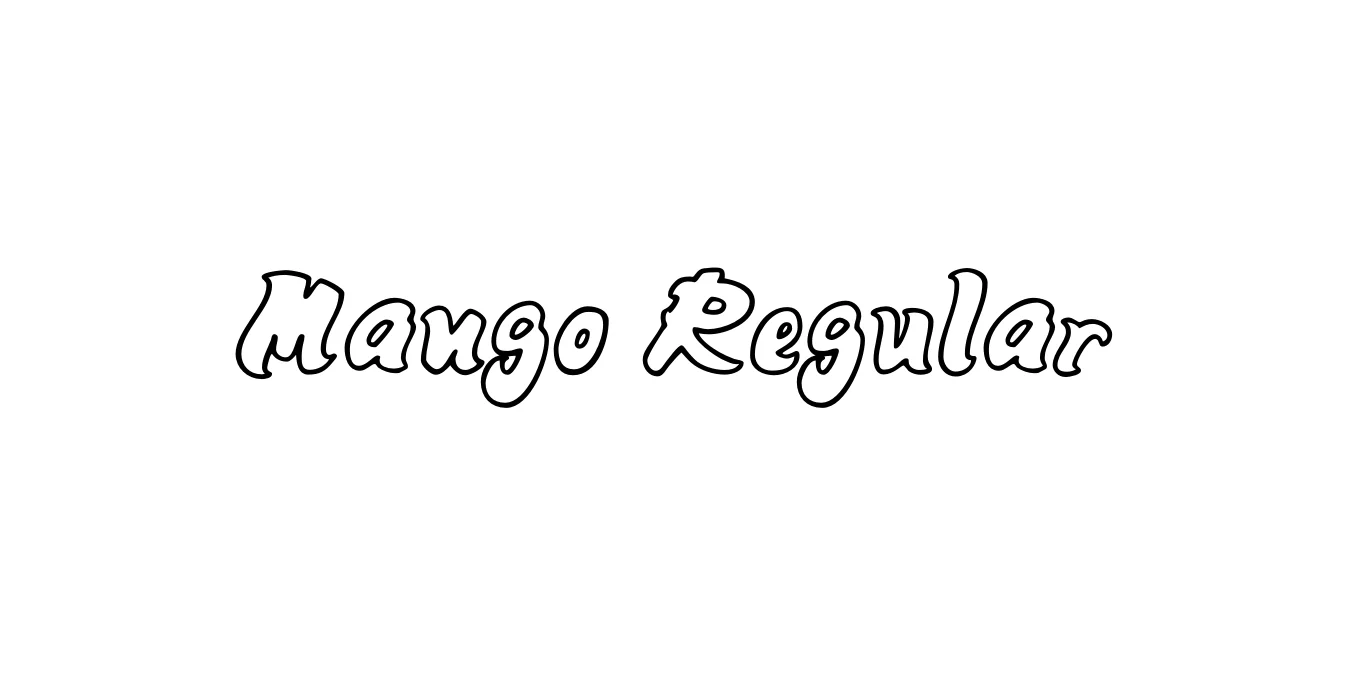
Mango Regular
Designed by Dmitriy Chirkov
| Category | Script / Brush |
| Designer | Dmitriy Chirkov |
Mango Regular is a vibrant and energetic brush-style typeface designed to bring a sense of handmade warmth to digital and print media. Created with fluid, organic strokes, this font captures a playful yet professional aesthetic that stands out in a crowded visual landscape. It was meticulously crafted to ensure that the natural flow of hand-lettering is preserved while maintaining the technical precision required for modern typography.
The font features a comprehensive set of characters, including unique ligatures and stylistic alternates that allow for a high degree of customization. Since its release, Mango Regular has become a popular choice for designers looking to inject personality into lifestyle brands, summer-themed promotions, and creative editorial layouts. Its bold weight and distinct silhouette make it exceptionally effective for display purposes where a friendly, approachable tone is essential.
Mango Regular Best Uses
Excellent for creating engaging Instagram quotes and vibrant Pinterest graphics.
Perfect for fashion, food, or lifestyle brand logos that require a personal touch.
Ideal for organic product labels and artisan craft packaging.
Works best as a bold title font for magazines and digital posters.